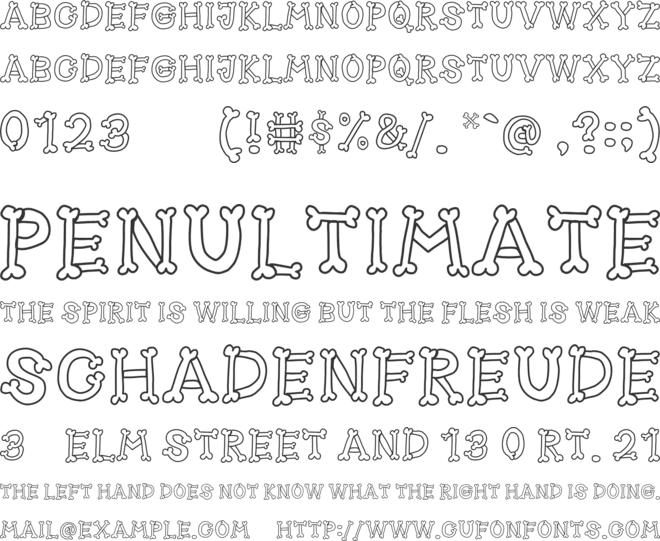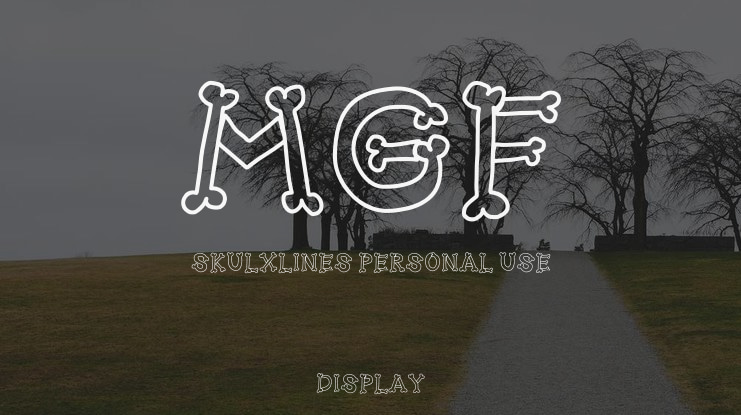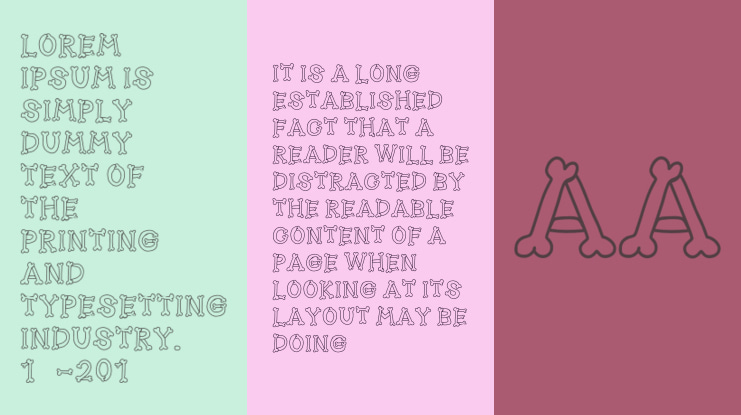
MGF Skulxlines Personal Use Font
SKUL X LINES is a bold bone-inspired display font that mixes creepy skeleton aesthetics with playful fun. With its chunky bone-shaped letters and lined details, this font is ideal for Halloween branding, spooky merchandise, event posters, candy packaging, children’s books, and seasonal social media content. Whether you’re creating logos, invitations, or themed designs, SKULL X LINES instantly delivers a spooky-yet-fun vibe that grabs attention.